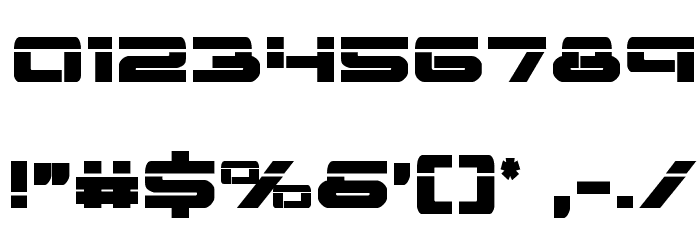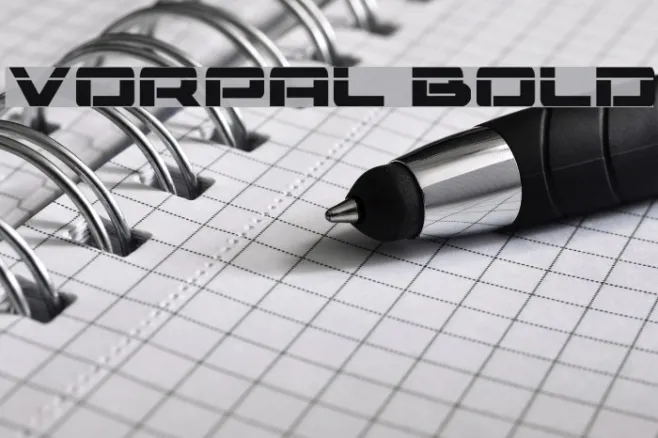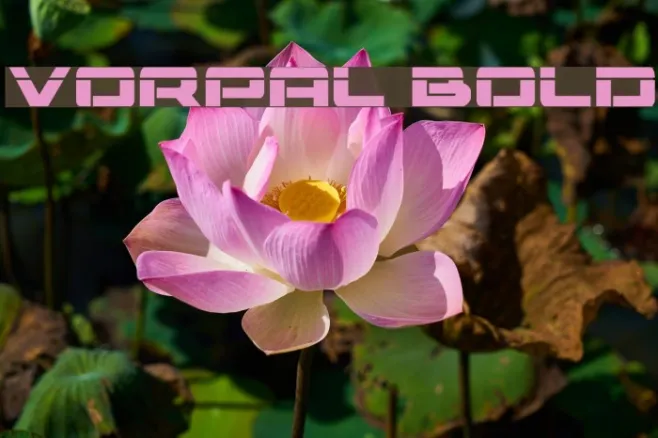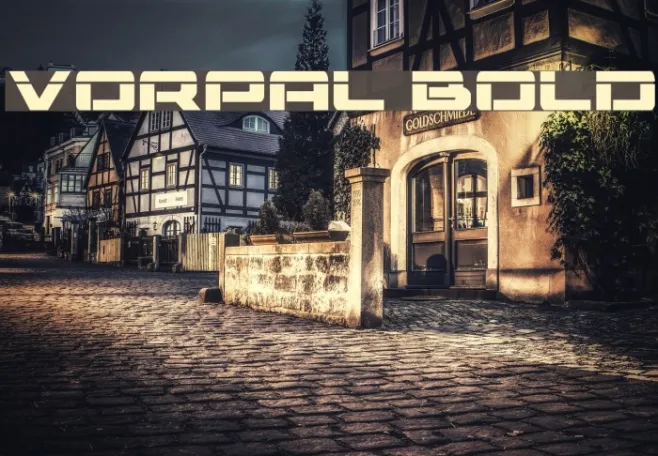
Vorpal Bold Font
This font exhibits a bold and futuristic design, characterized by its geometric and angular shapes. The letters are constructed with a consistent thickness, giving it a strong and solid appearance. The uppercase and lowercase letters maintain a uniform style, with sharp edges and a blocky structure that suggests a modern, tech-inspired aesthetic. The numbers and special characters follow the same design principles, ensuring a cohesive look across all glyphs. This font's unique style makes it stand out, ideal for projects that require a bold and assertive typeface.
A bold, futuristic font with geometric and angular shapes.
- Proposed Projects: Ideal for technology branding, sci-fi posters, video game titles, and modern advertising.